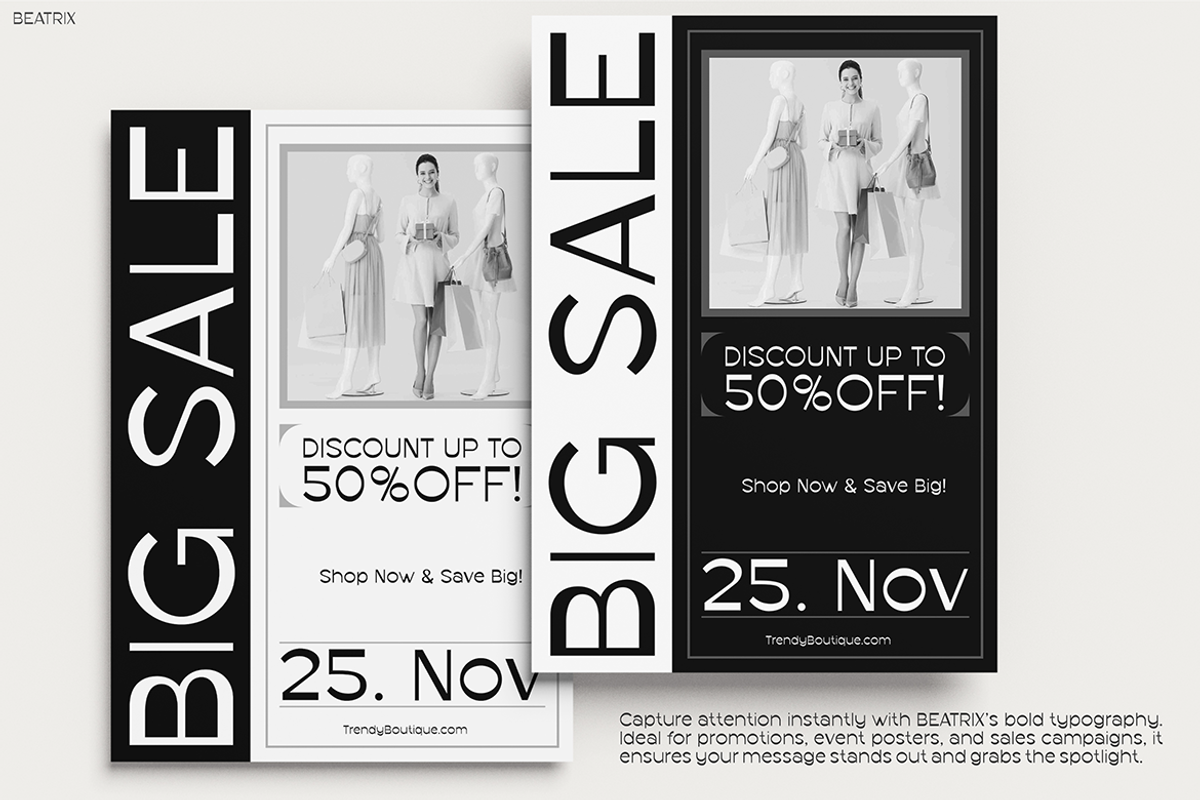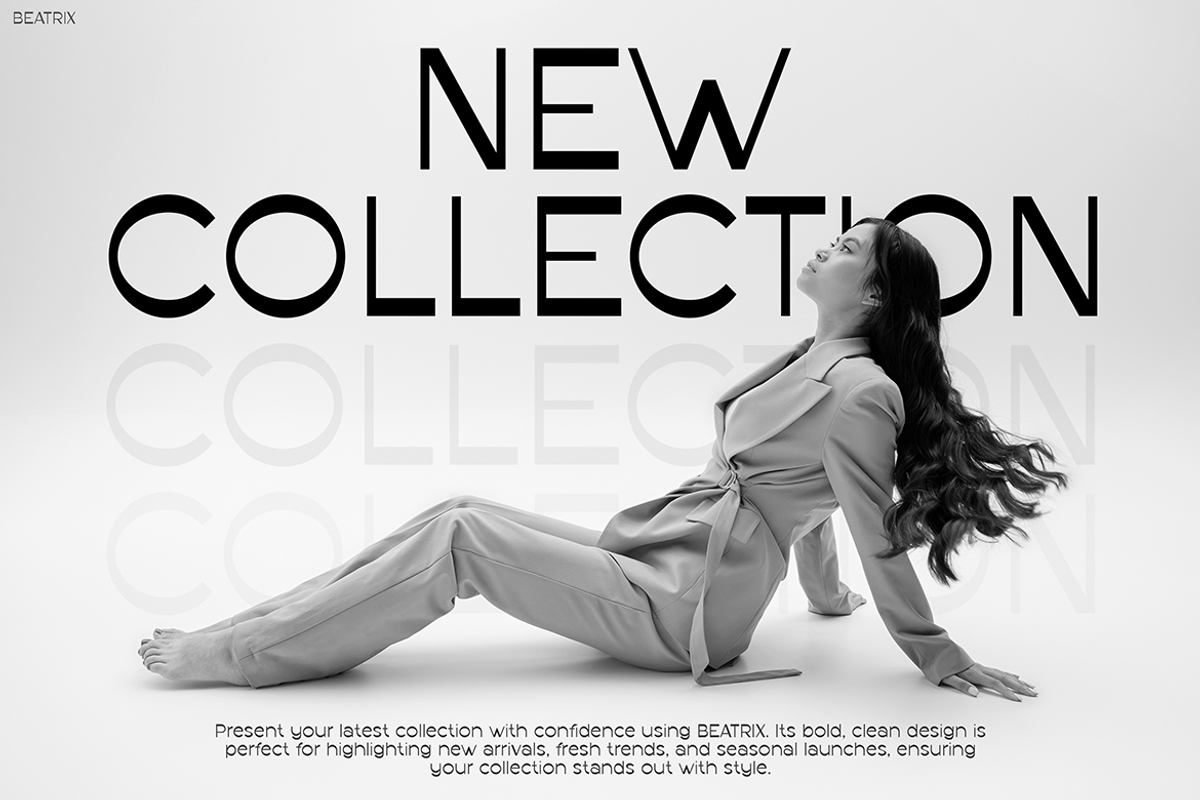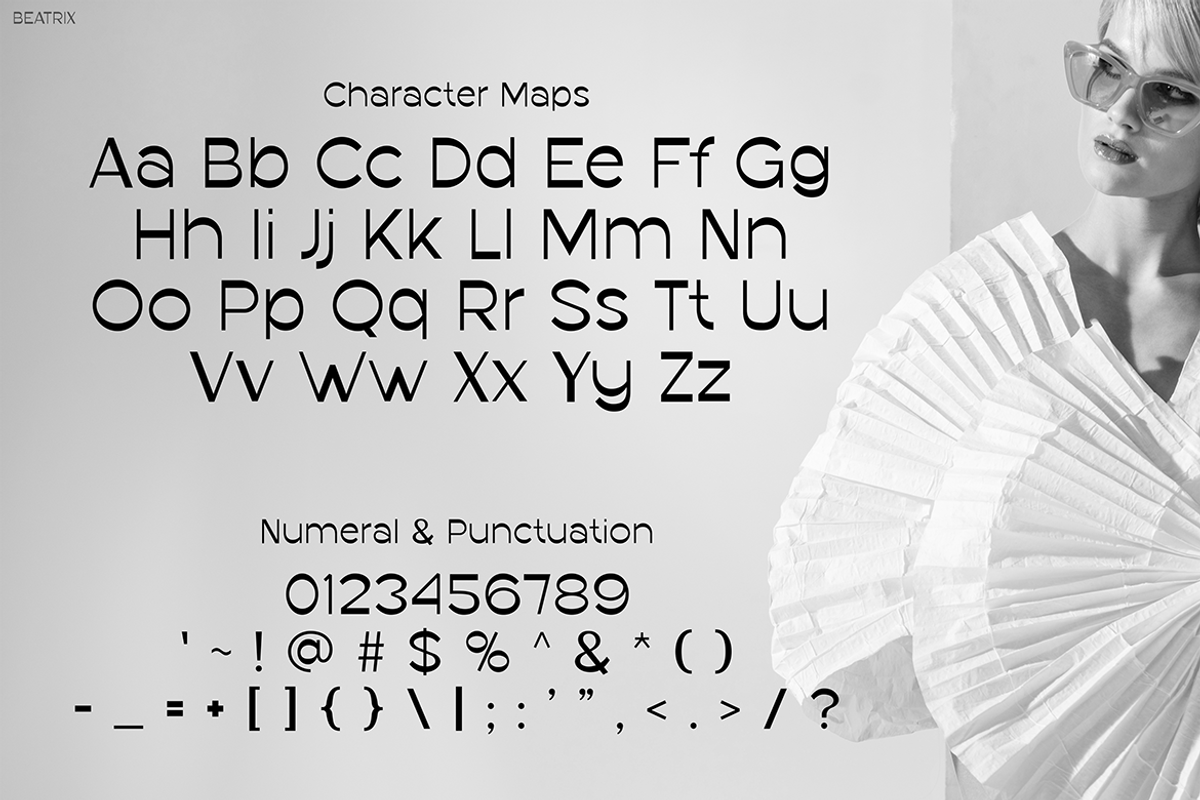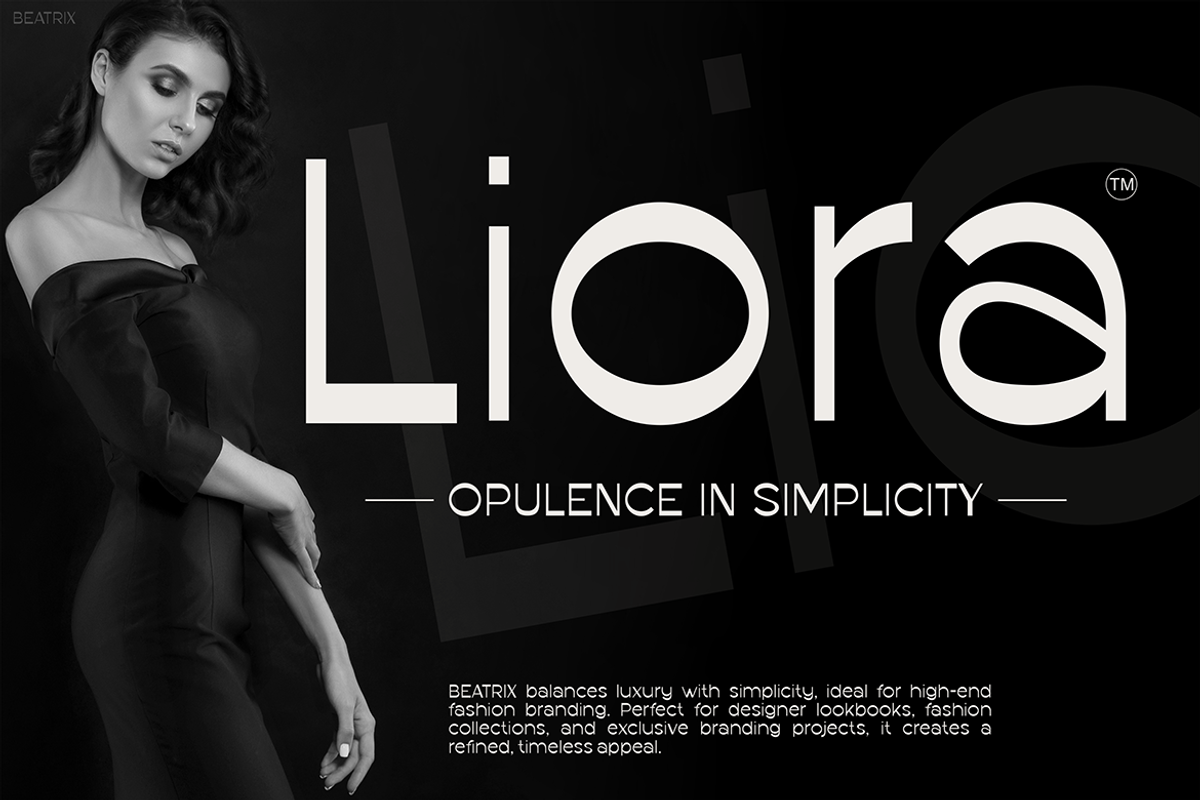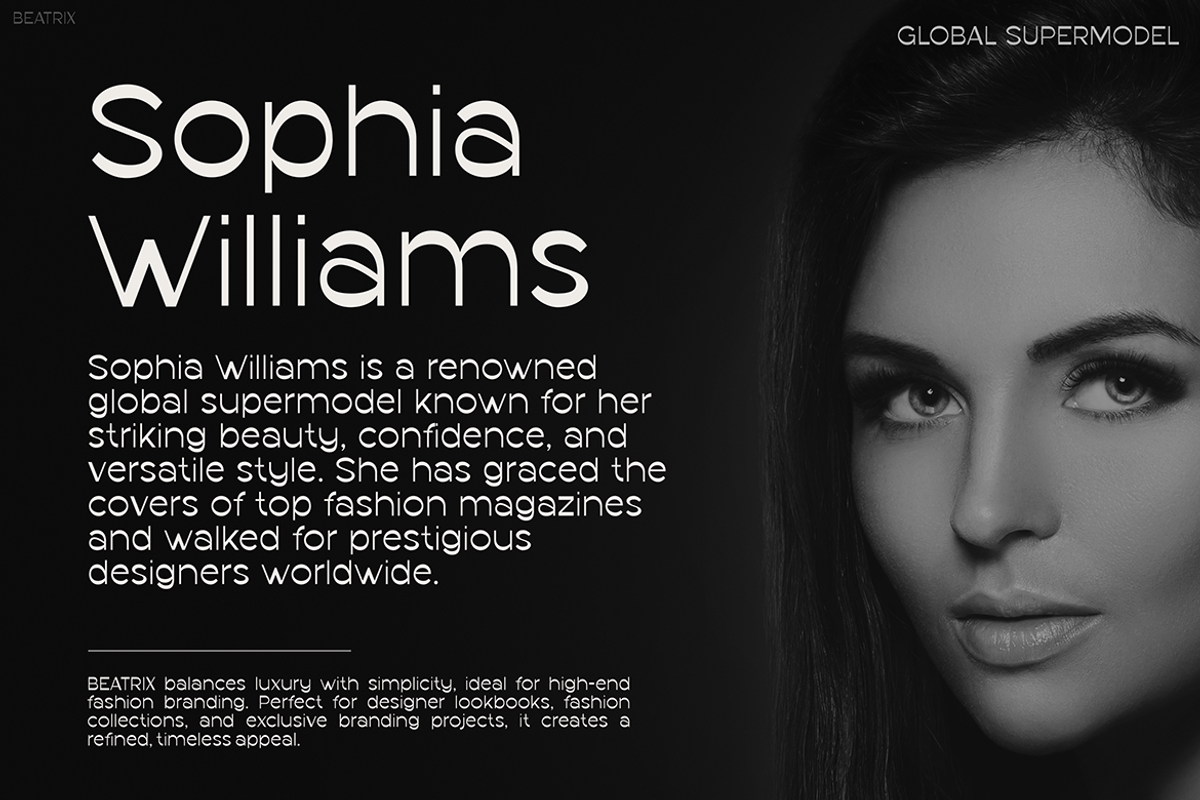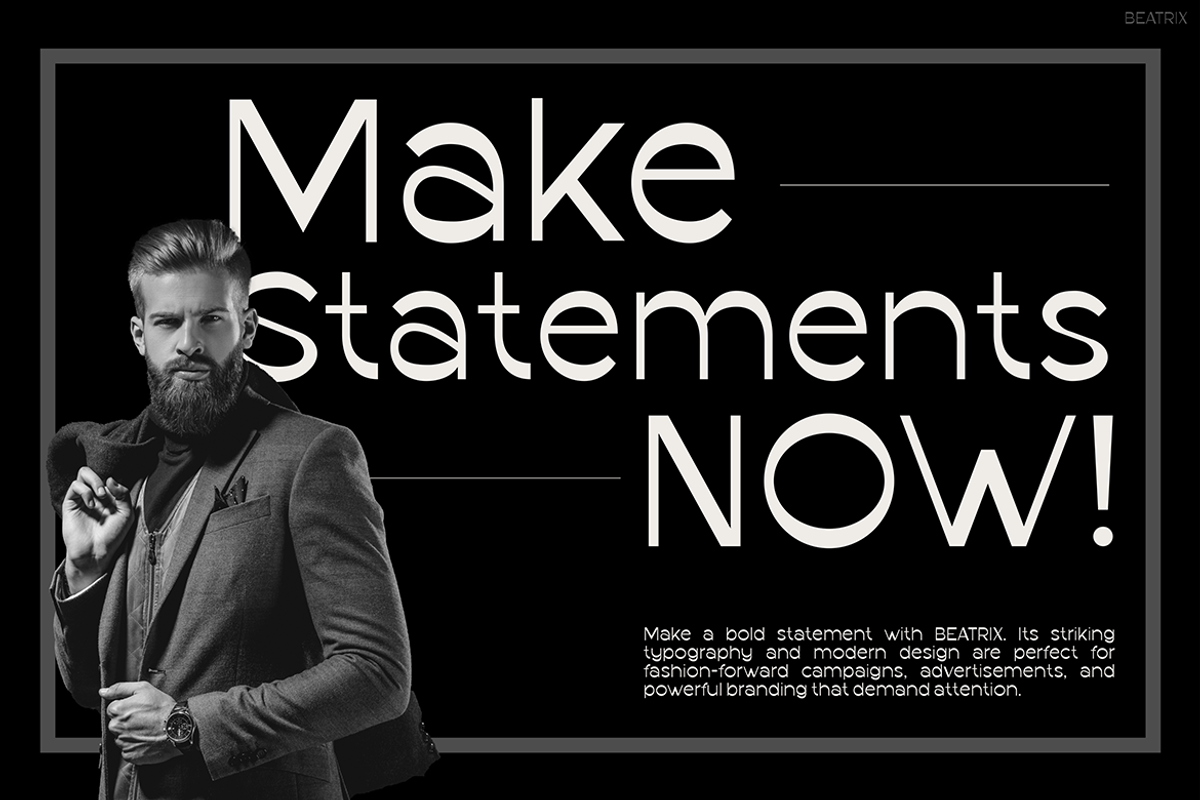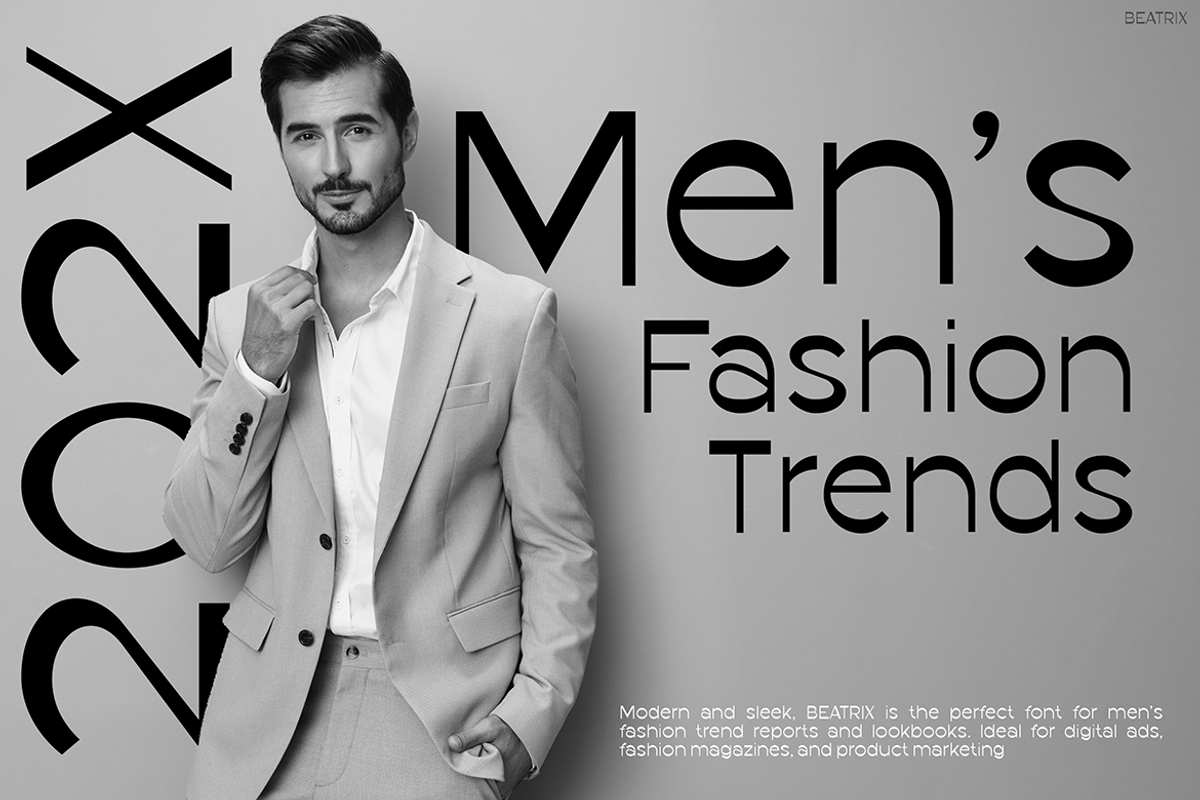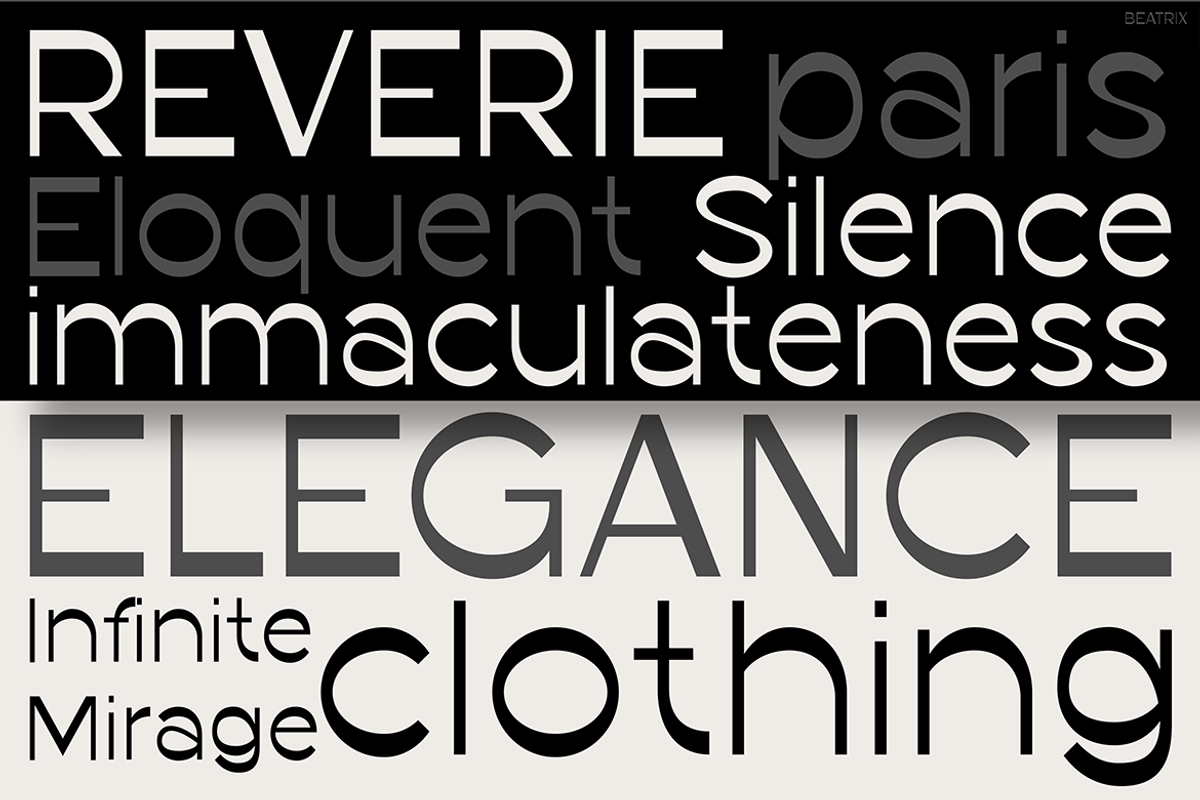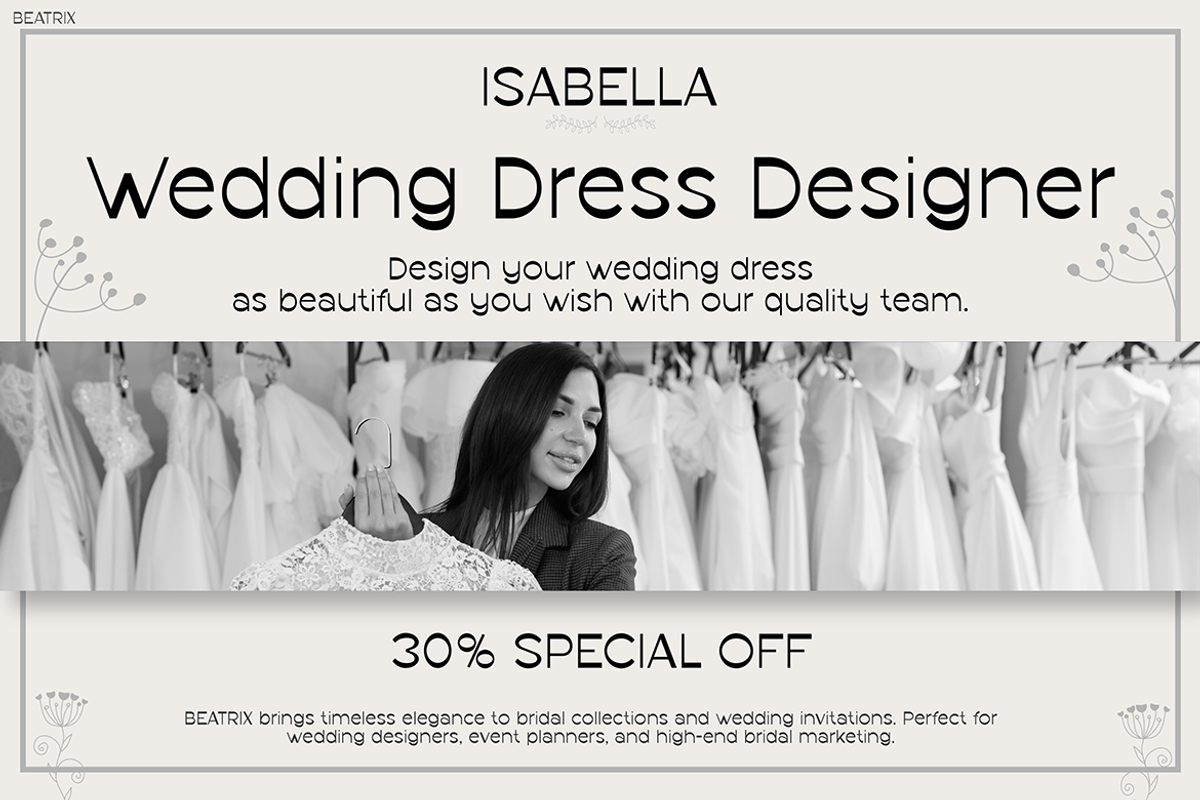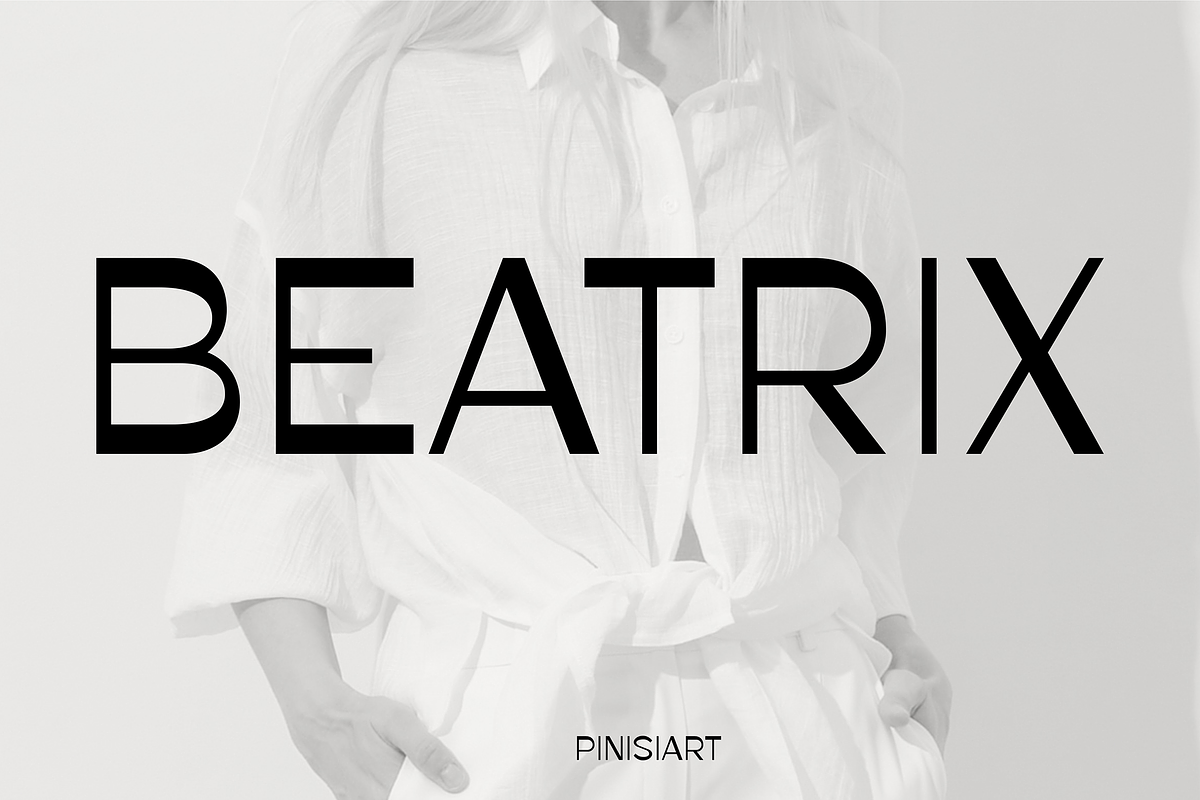
BEATRIX
Instagram Font BEATRIX – The Epitome of Modern Elegance
Instagram Font BEATRIX is a sleek and modern typeface designed for bold, stylish branding. It features clean, geometric letterforms that create a contemporary and sophisticated look. Not only is this font visually appealing, but it also ensures excellent readability. Whether you are designing headlines, promotional content, or social media posts, BEATRIX makes sure your message is both clear and eye-catching.
What sets BEATRIX apart is its perfect balance of elegance and versatility. With its sharp edges and minimalist structure, this font is ideal for high-fashion campaigns, luxury branding, and digital marketing. Moreover, it seamlessly adapts to both print and digital platforms. More than just a typeface, BEATRIX is a statement of modern style and professionalism.